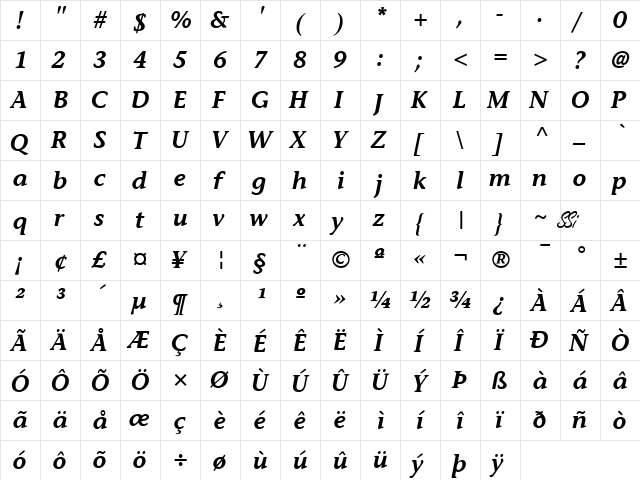
Mesouran Casual SSi Semi Bold Italic Font Preview
Design Context for Mesouran Casual SSi Typeface
Mesouran Casual SSi takes a measured approach to typography — its balanced proportions and neutral character make it a reliable workhorse for both digital and print work. The dynamic lean of this cut emphasises speed and emphasis in any layout. The heavy weight commands attention and anchors typographic hierarchies.
Pro Tip: Try Mesouran Casual SSi for annotation and caption copy alongside an upright companion — the contrast in angle creates a dynamic but ordered typographic system.